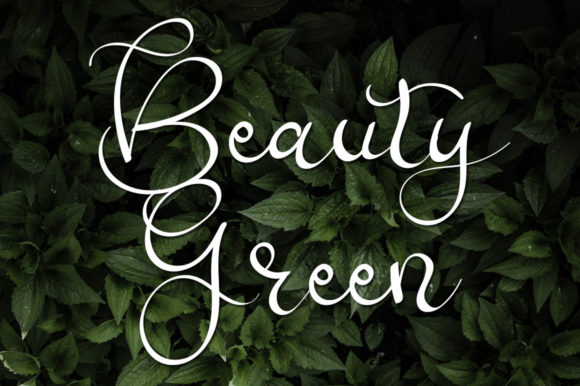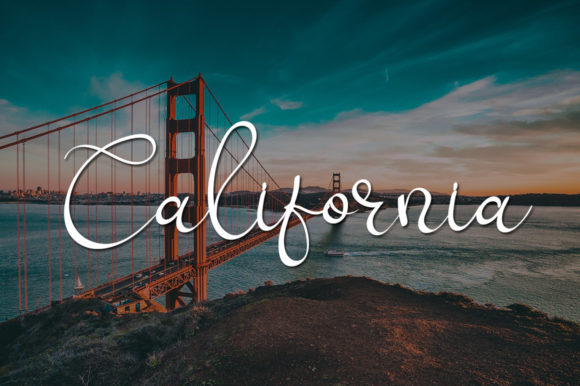
New Photography Font
db-ku.com - Script & Handwritten -- New Photography is a beautiful and sweet font. It is fresh, clean, and elegant. This font will look amazing in a great number of projects, both formal and informal. It will add an incredibly joyful touch to your designs. Font's designed to simplify your design. By using this font, your business will look more beautiful.